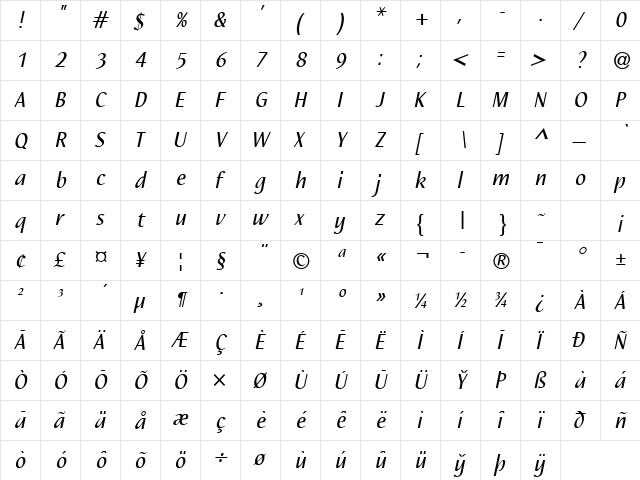
Nautilus LT Roman Italic Font Preview
Design Context for Nautilus LT Roman Typeface
Nautilus LT Roman takes a measured approach to typography — its balanced proportions and neutral character make it a reliable workhorse for both digital and print work. The slanted form adds forward momentum and visual energy. The delicate stroke weight brings airiness and refinement to layouts.
Pro Tip: Try Nautilus LT Roman for annotation and caption copy alongside an upright companion — the contrast in angle creates a dynamic but ordered typographic system.